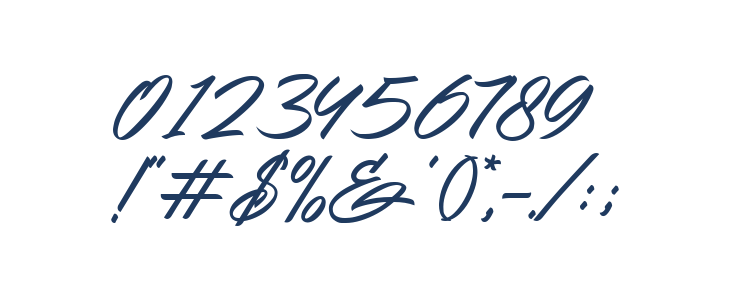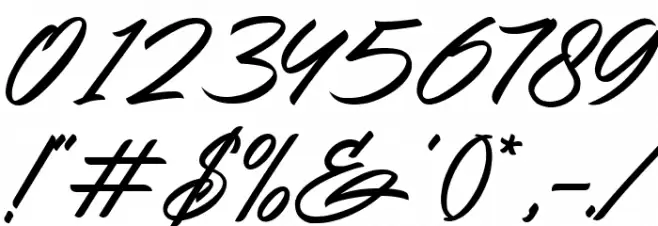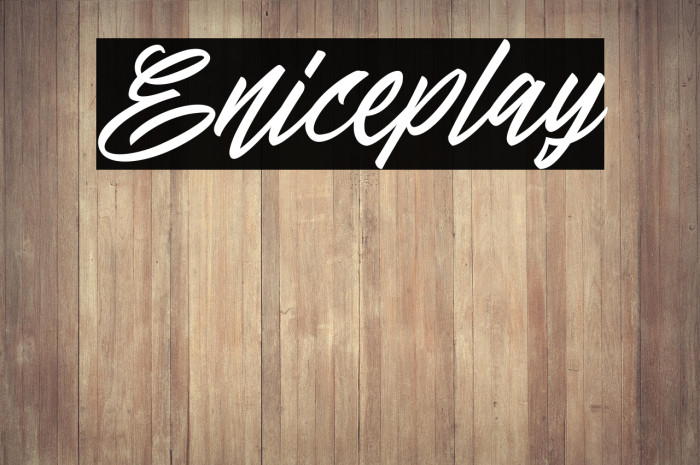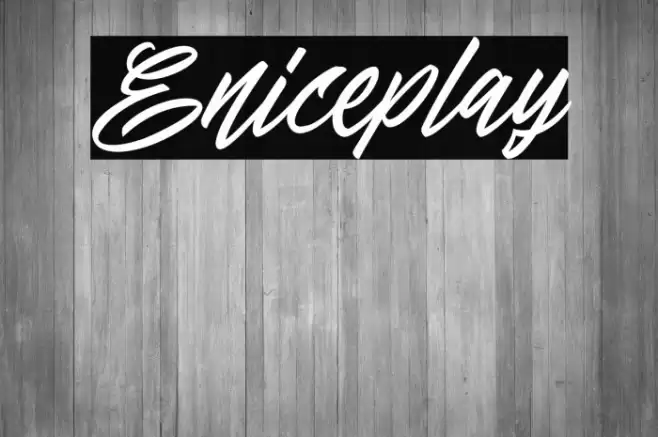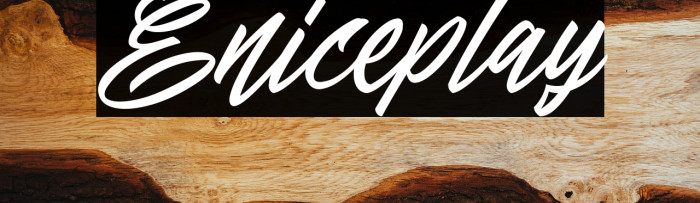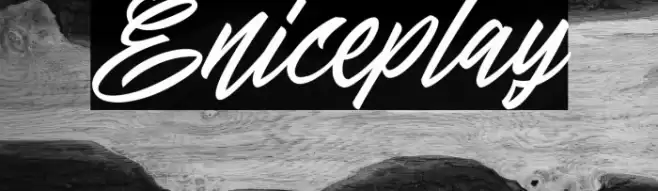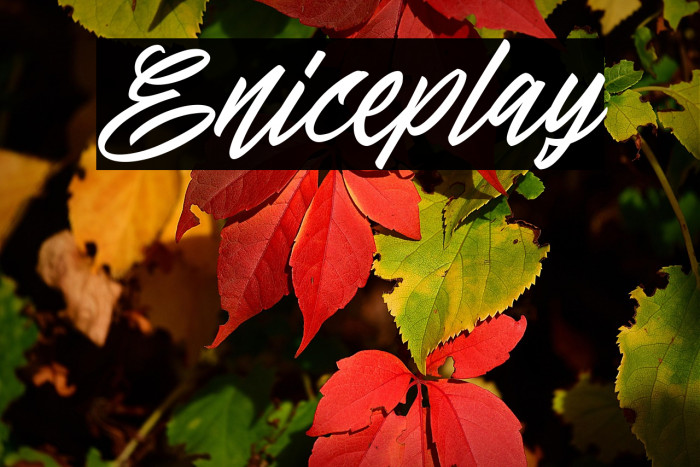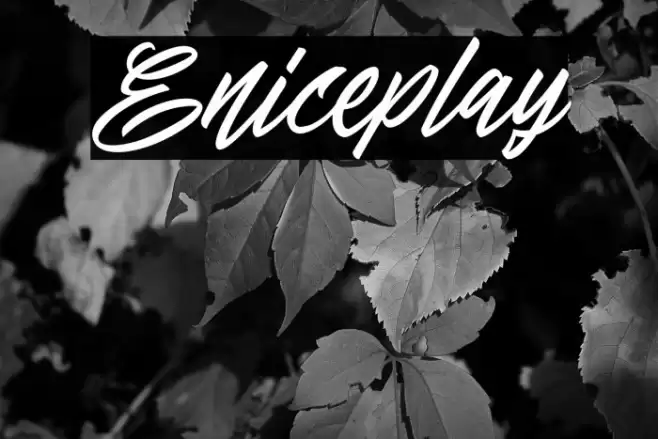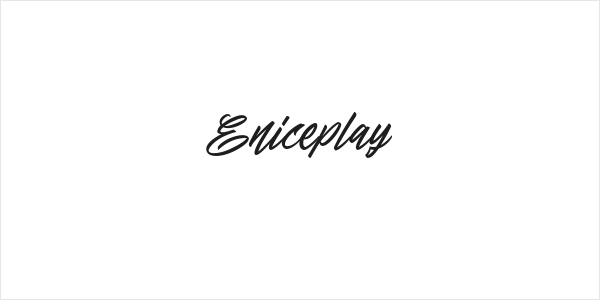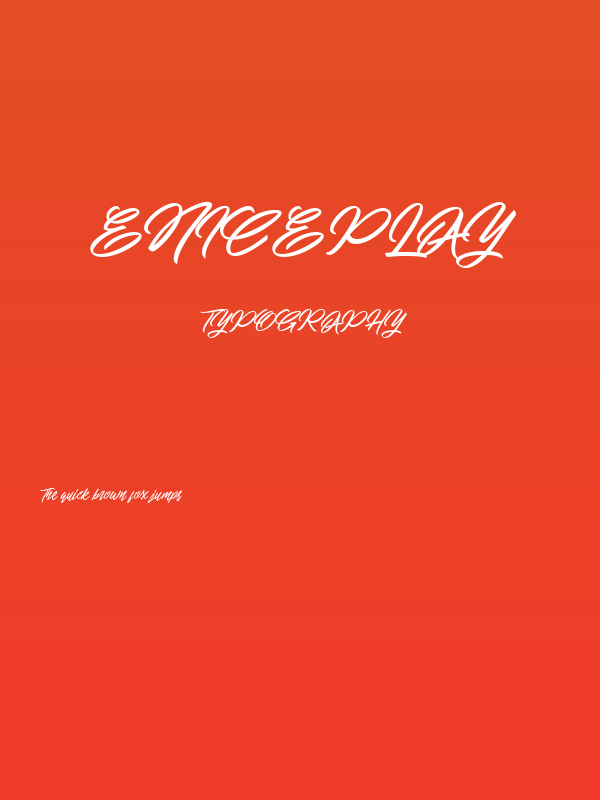
Eniceplay Font
Eniceplay Description
This font embodies a dynamic and fluid script style, characterized by its elegant, cursive strokes that mimic the flow of handwriting. The letters are interconnected, creating a seamless and continuous appearance. The uppercase letters are bold and slightly larger, providing a striking contrast to the more delicate lowercase letters. The numerals and special characters maintain the same fluidity, ensuring consistency across all elements. This font exudes a sense of sophistication and creativity, making it ideal for projects that require a personal touch.